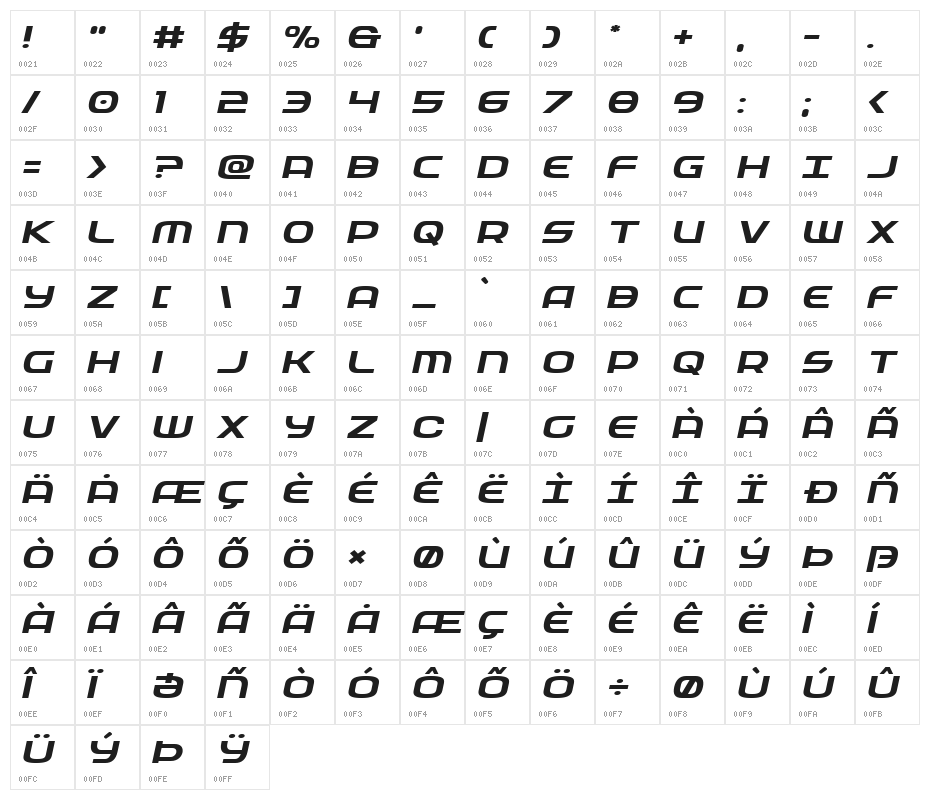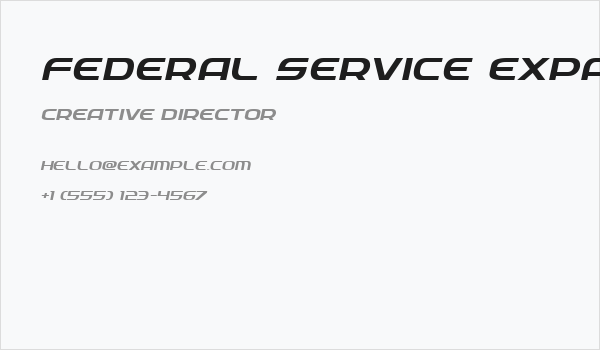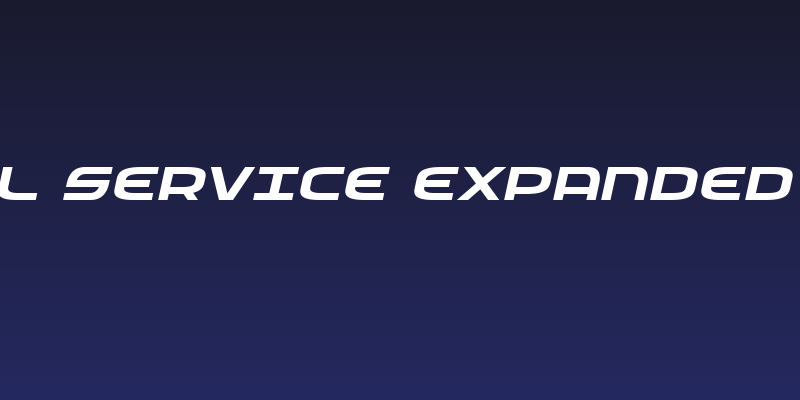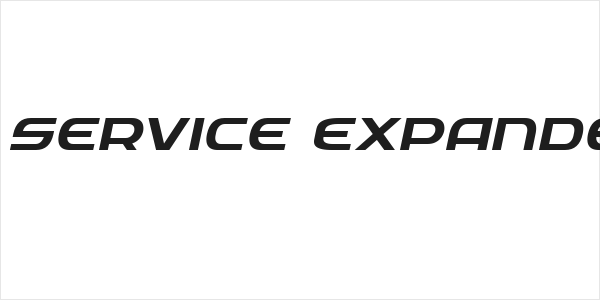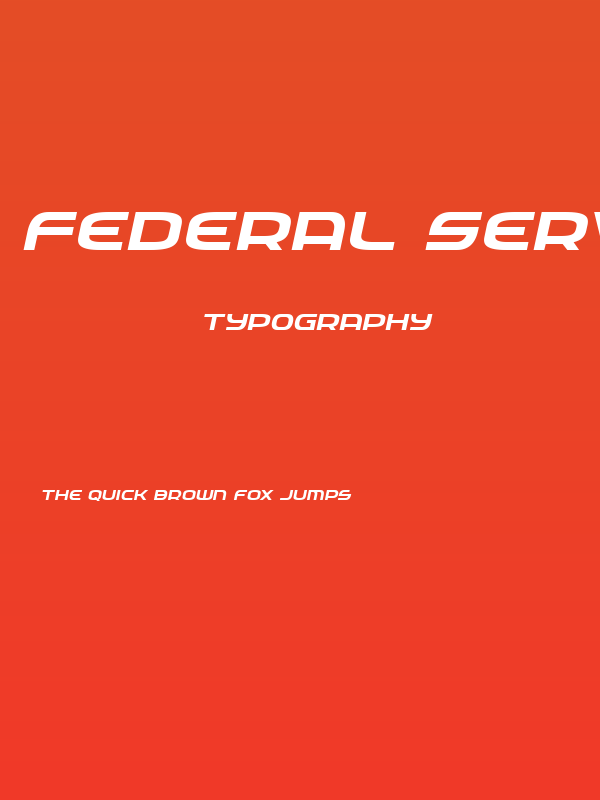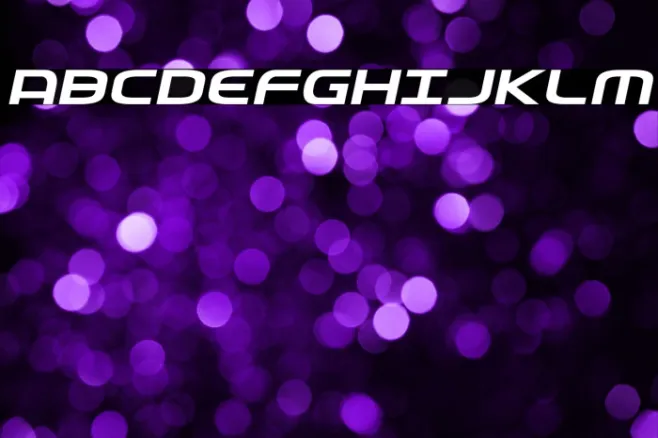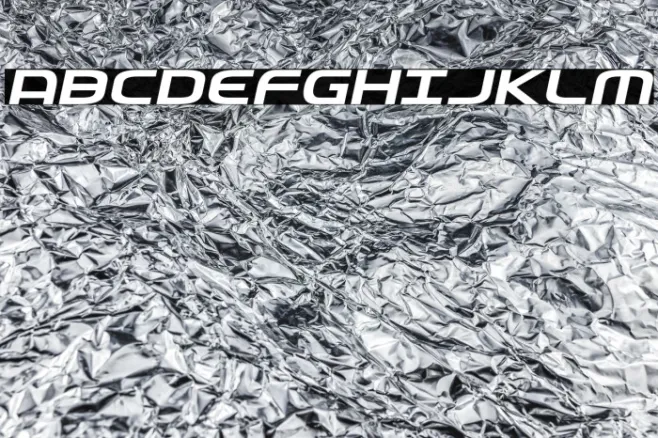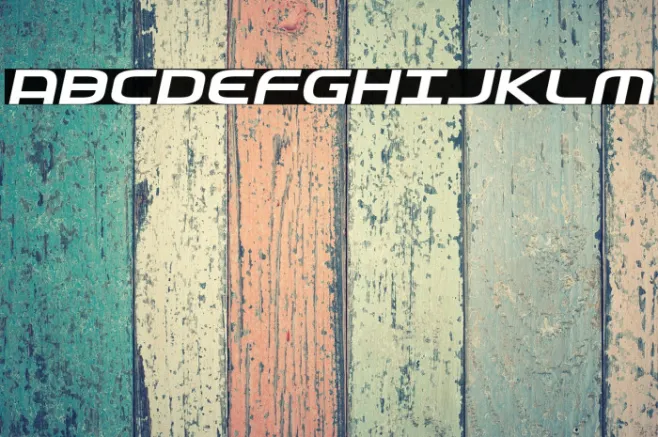
Federal Service Expanded Italic Font
Federal Service Expanded Italic Description
This typeface features a sleek, modern design with a distinctly italicized slant, giving it a dynamic and forward-moving appearance. The characters are uniformly expanded, providing a sense of openness and readability. The strokes are consistent in thickness, offering a medium contrast that balances clarity with style. The geometric shapes of the letters, combined with the smooth curves and sharp angles, create a futuristic and professional aesthetic. This font is versatile, suitable for a variety of applications where a contemporary and sophisticated look is desired.
| Use Case | Headlines, Logos, Digital interfaces |
| Proposed Projects | Ideal for branding, advertising, and digital interfaces where a modern and dynamic appearance is required. |